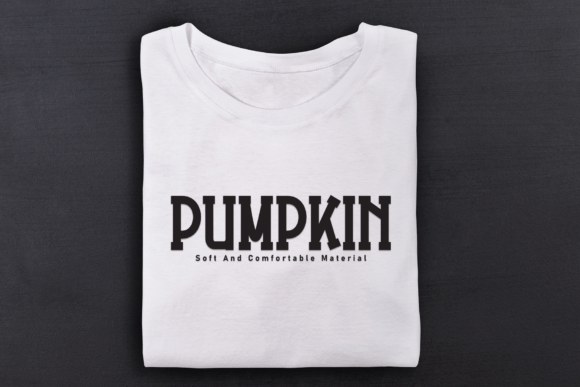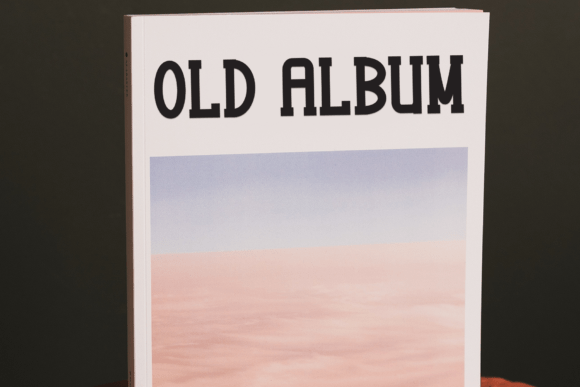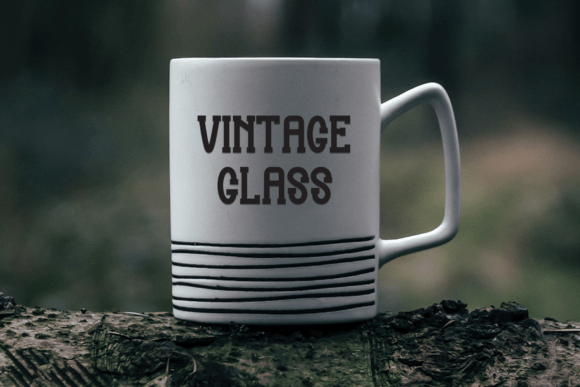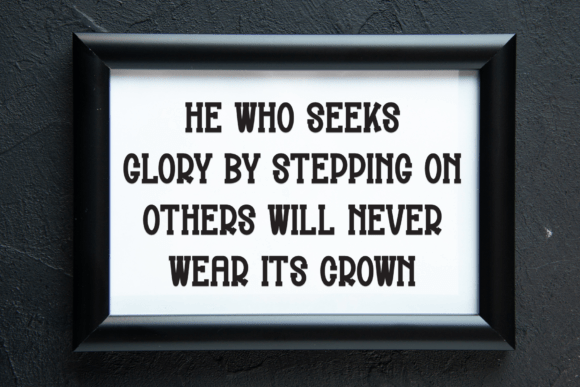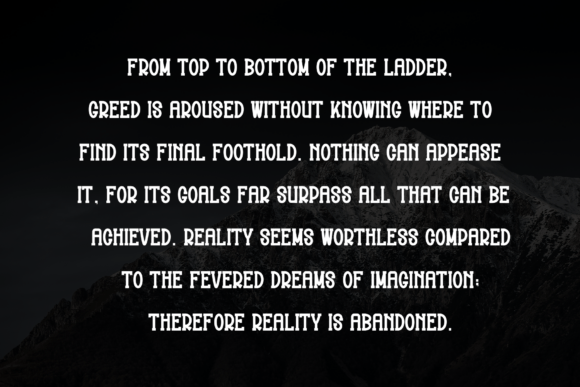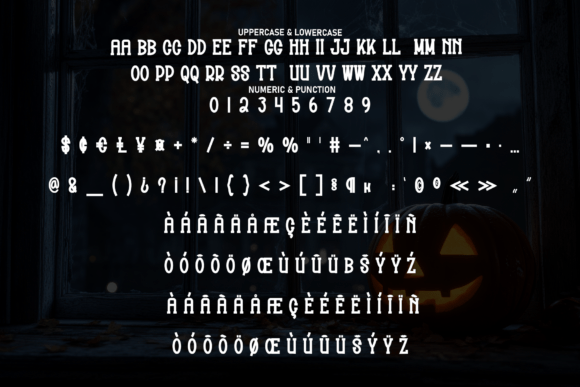
Introduction to Midnight Hallowen Font Font
Fonts play a crucial role in design, and the Midnight Hallowen Font font is a typeface that brings both character and versatility to any project. Whether you’re working on a branding project, a website, or a print design, the Midnight Hallowen Font font offers a unique style that can elevate your work.
Unearth the inviting charm of a display font that radiates a bond of warmth and approachability, weaving a spell of magnetic elegance into your artistic panorama.
Perfectly formulated for wedding cards or heartfelt greetings, this typeface serves up a whimsical and captivating flair with its unrestrained character This approachable font ardently promises to transmute your design into a piece of eye-catching artistry, seamlessly blending amusement with allure.
Key Features of Midnight Hallowen Font Font
Why Choose Midnight Hallowen Font Font?
The Midnight Hallowen Font font is more than just a typeface – it’s a design tool that helps you communicate your message with style and clarity. Its unique character set and versatile design make it suitable for a wide range of applications, from elegant invitations to bold headlines.
With its carefully crafted letterforms and balanced proportions, the Midnight Hallowen Font font ensures readability and visual appeal across all mediums.
What makes Midnight Hallowen Font font special?
The Midnight Hallowen Font font stands out with its unique design, exceptional readability, and versatility across various design applications.